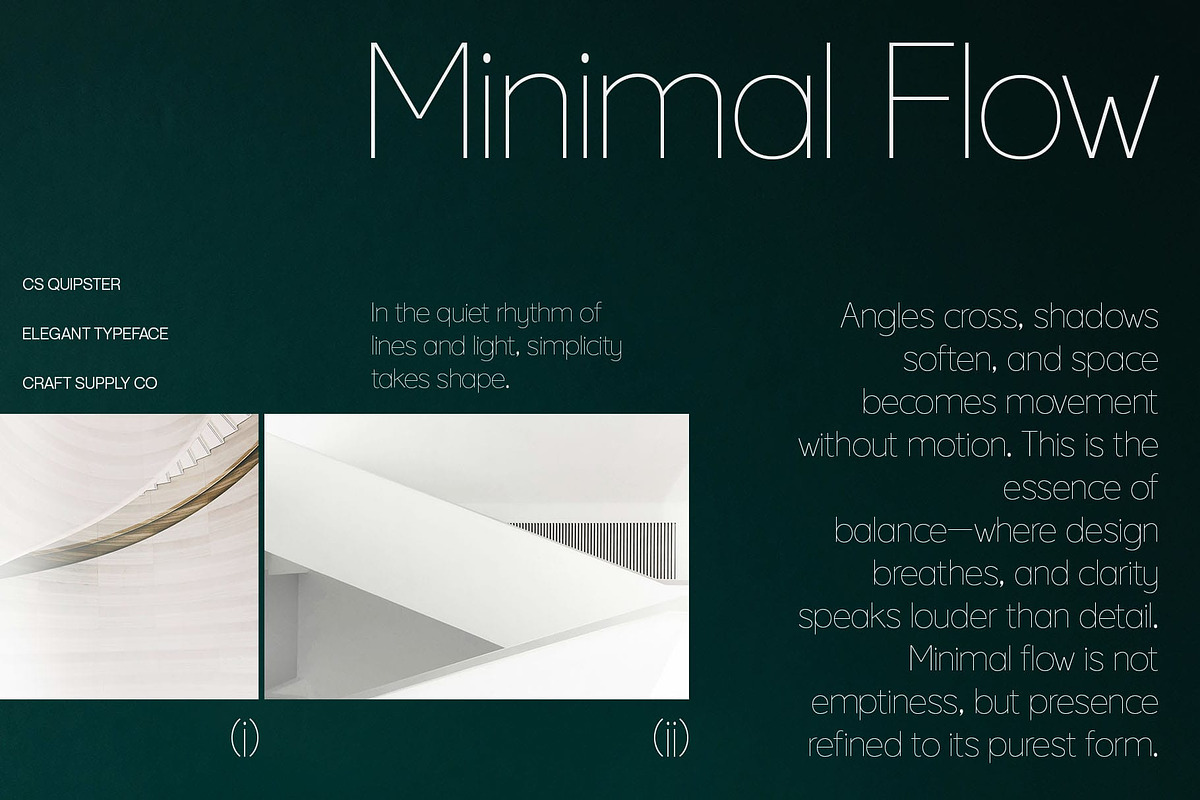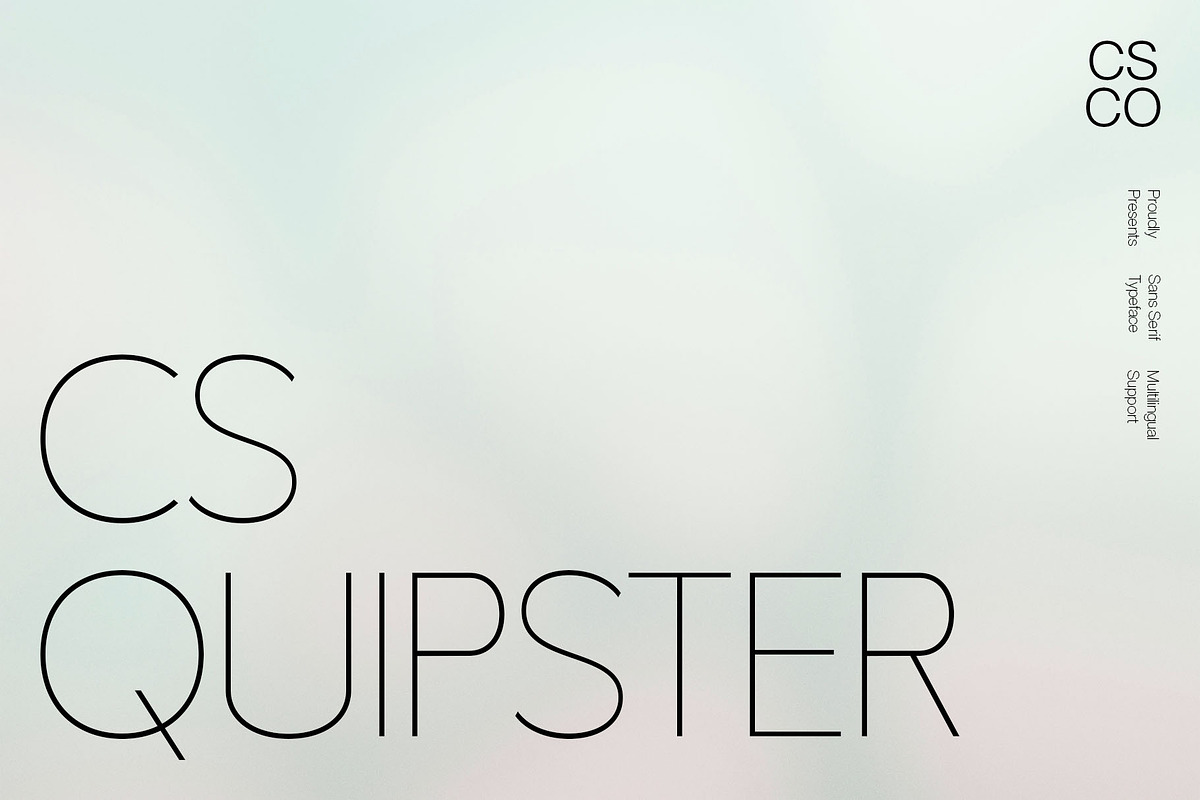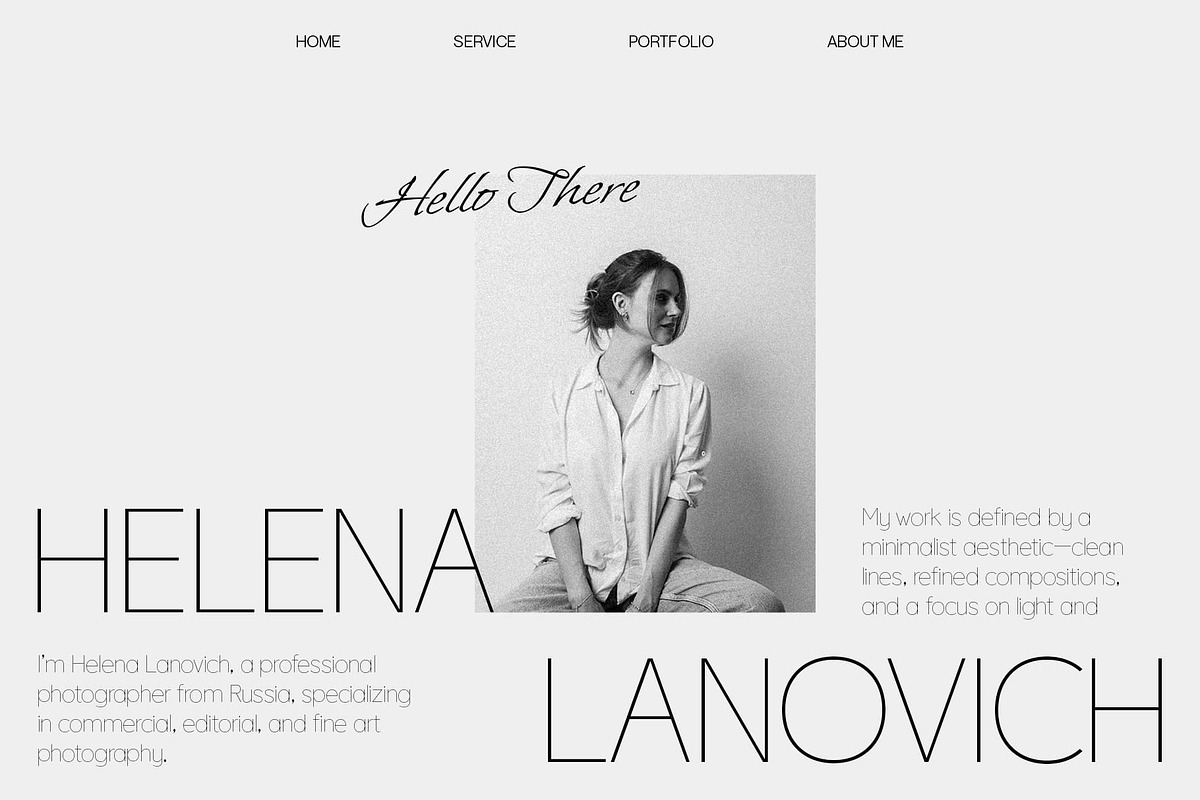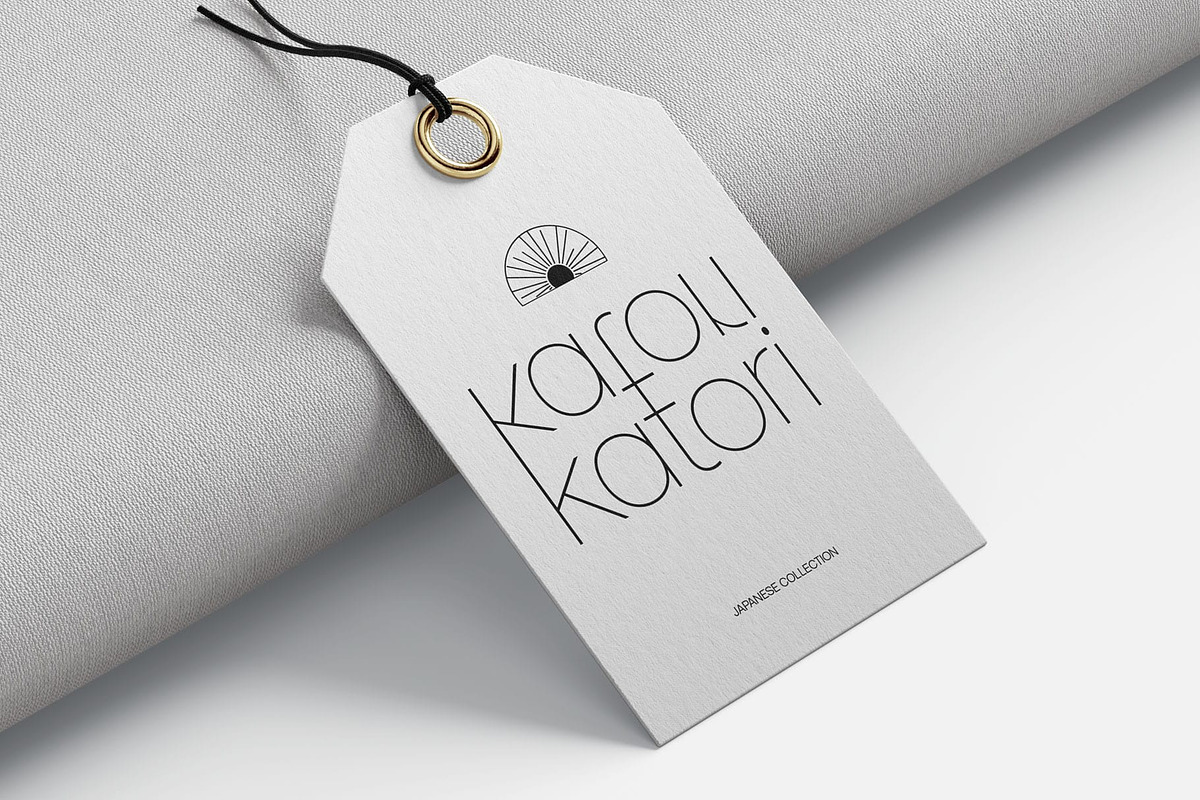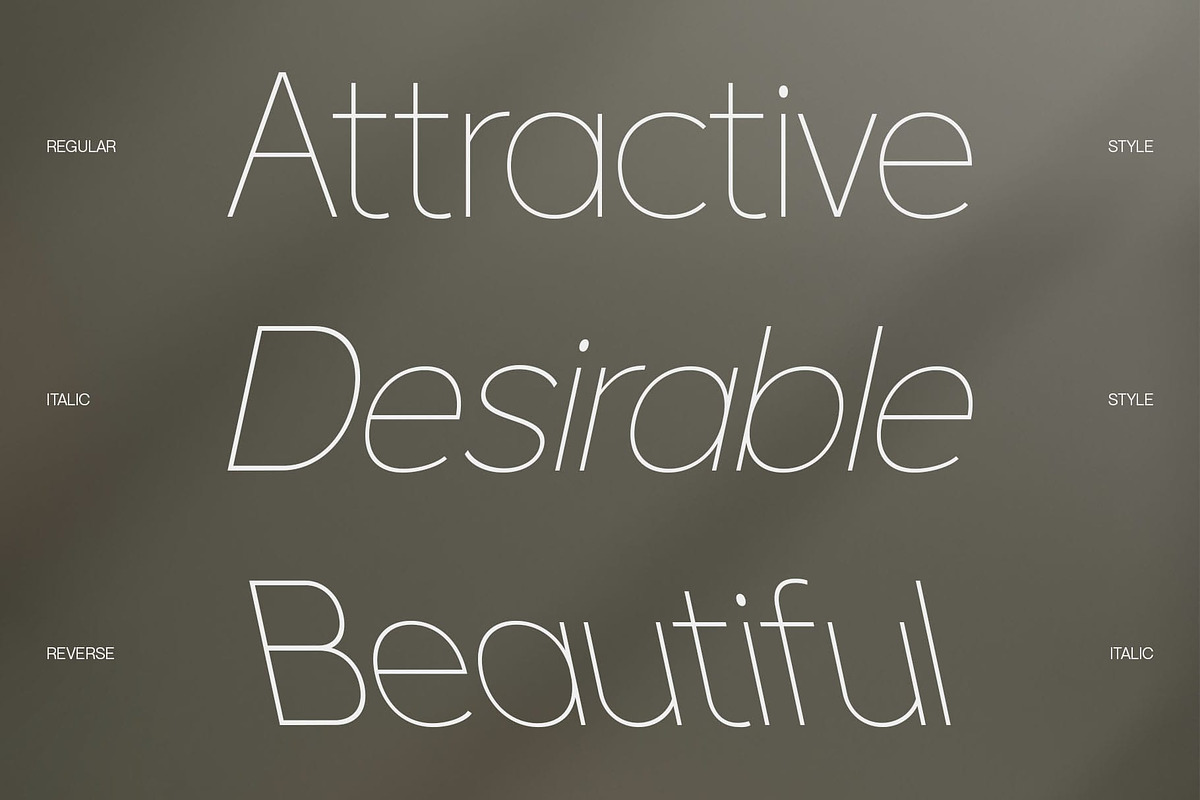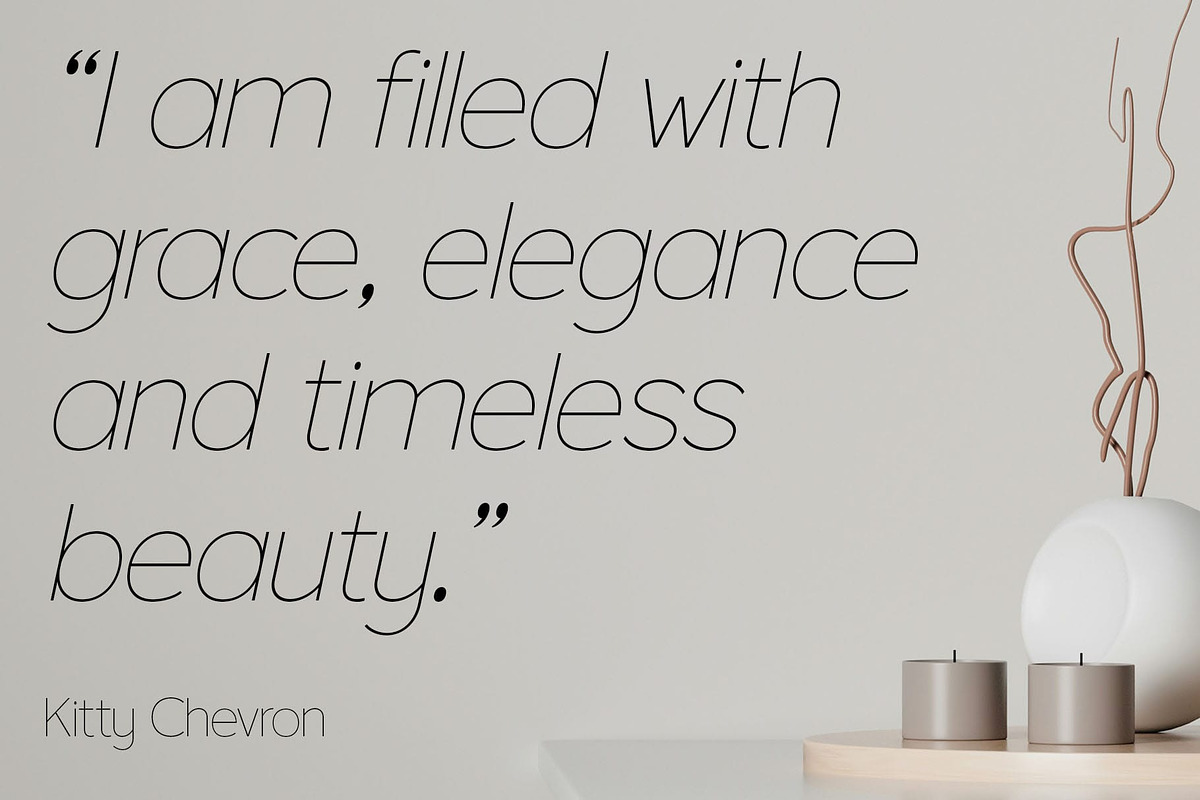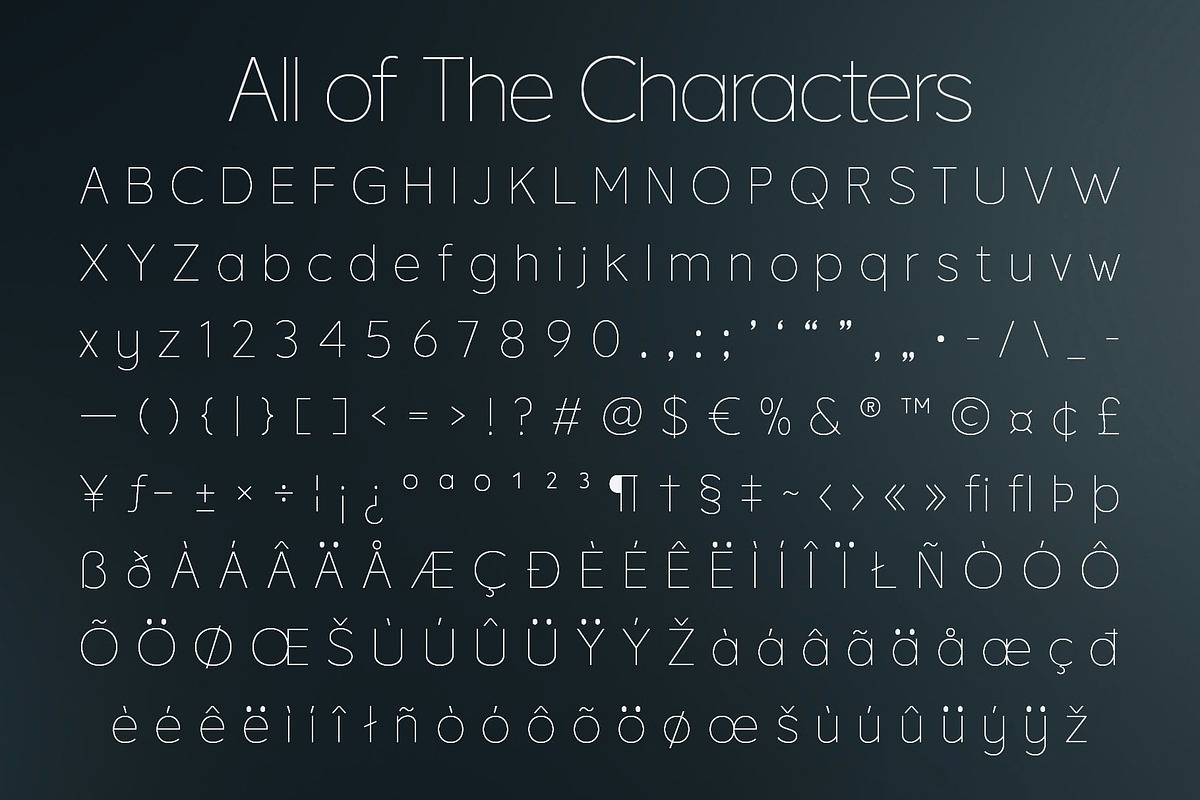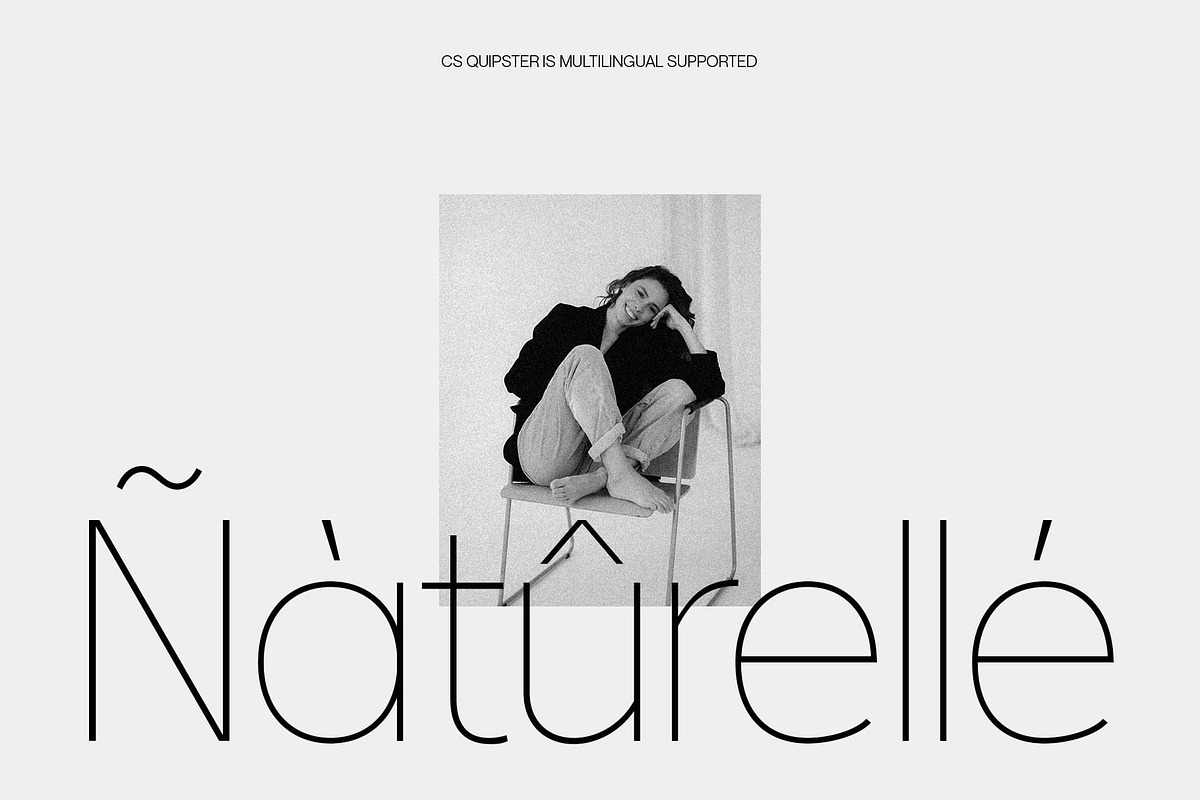
CS Quipster – Thin Geometric Sans
CS Quipster – Thin Geometric Sans Serif with Minimalist Style Thin Geometric Sans Serif for Elegant Design
Modern Geometry with Professional Clarity CS Quipster is a geometric sans serif font designed with thin letterforms that emphasize elegance and precision. Its minimalist construction delivers a clean, modern aesthetic, making it ideal for professional projects that demand clarity and sophistication. The geometric structure ensures balance, harmony, and timeless appeal.
Elegant and Minimalist Expression With its refined thin strokes, CS Quipster conveys a sleek and minimalist personality. It adapts easily to both formal and casual contexts, giving designers flexibility while maintaining a polished look. From high-end branding to everyday communication, this font radiates understated elegance and confidence.
Perfect for Branding and Editorial Design CS Quipster excels in branding, posters, and editorial layouts where readability meets style. Its professional appearance makes it suitable for corporate identities, while its light and airy form enhances creative projects. Whether in logos, magazine spreads, or digital graphics, it provides a versatile typographic voice.
Balancing Structure with Individuality While rooted in geometric precision, CS Quipster brings artistic individuality to modern typography. Its clean lines ensure structure and order, while its slender form introduces a unique, stylish character. This balance allows the font to remain functional yet visually distinctive, perfect for designers seeking a modern minimalist typeface with personality.
- CS Quipster Regular
- CS Quipster Italic
- CS Quipster Reverse Italic